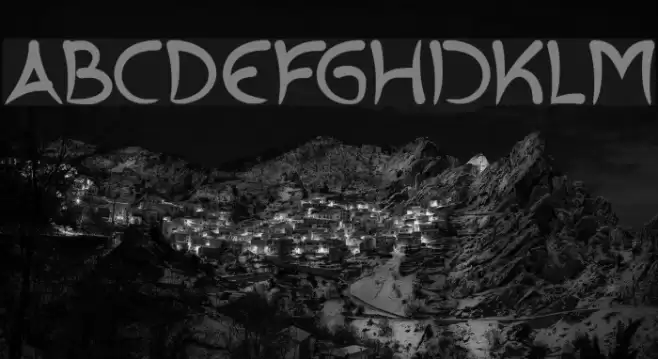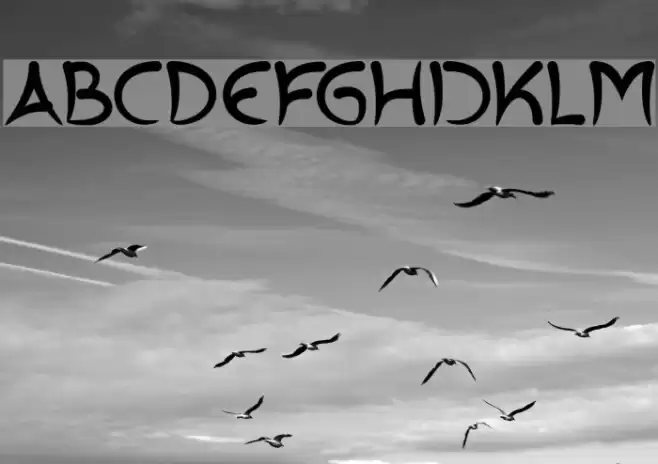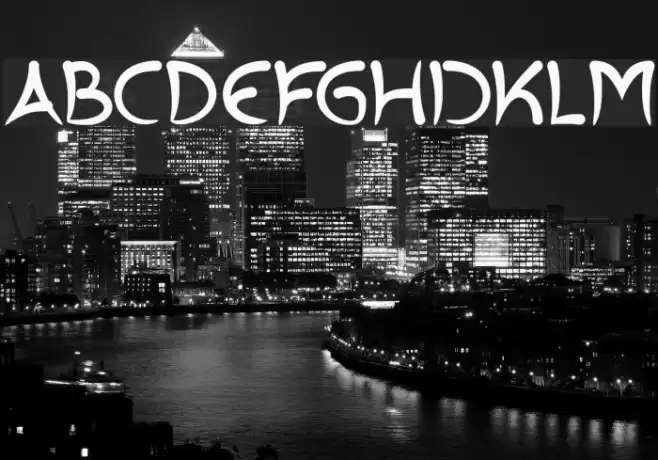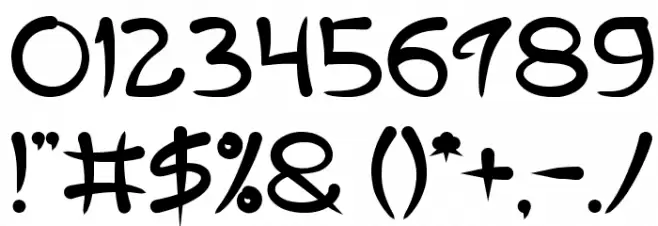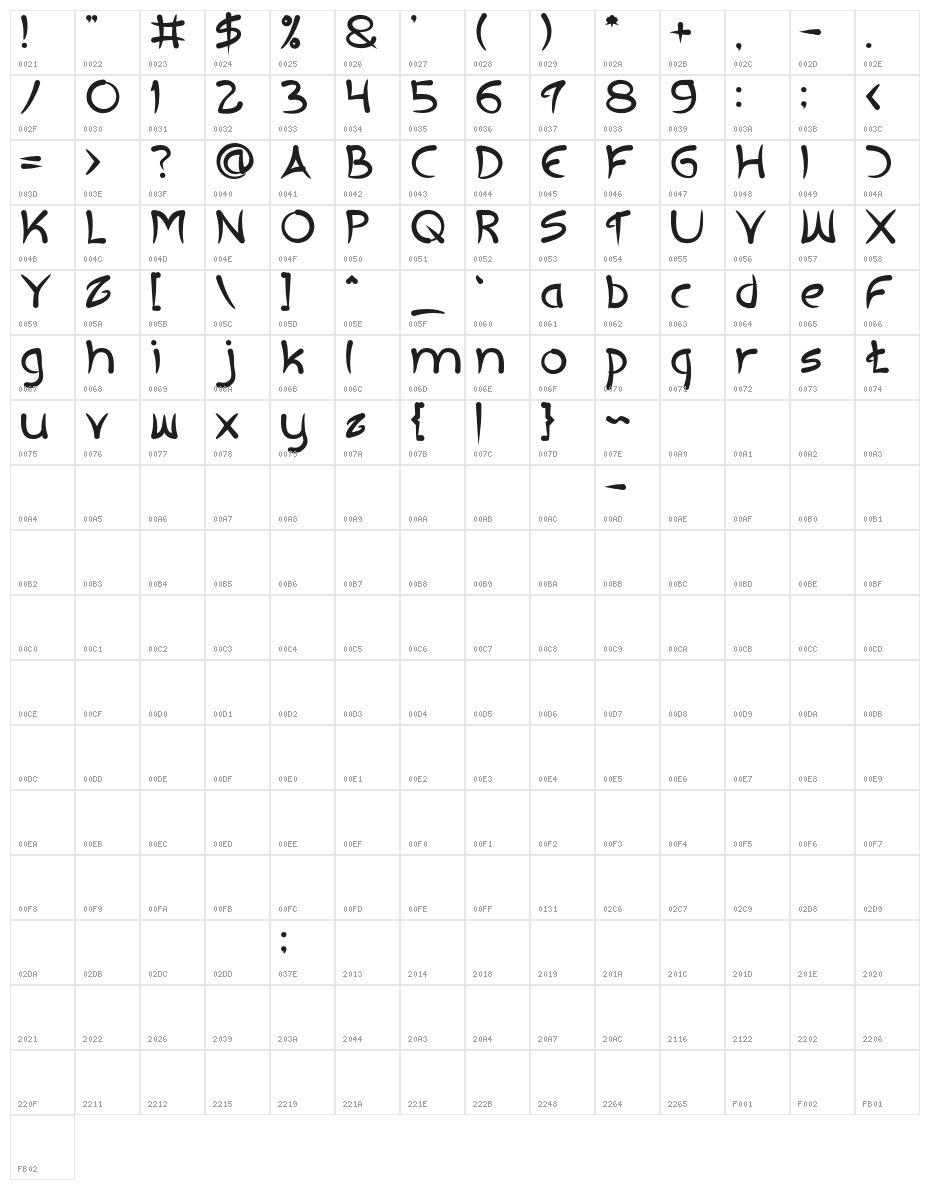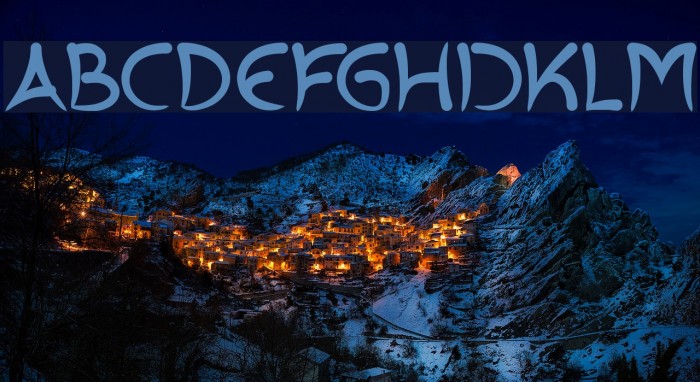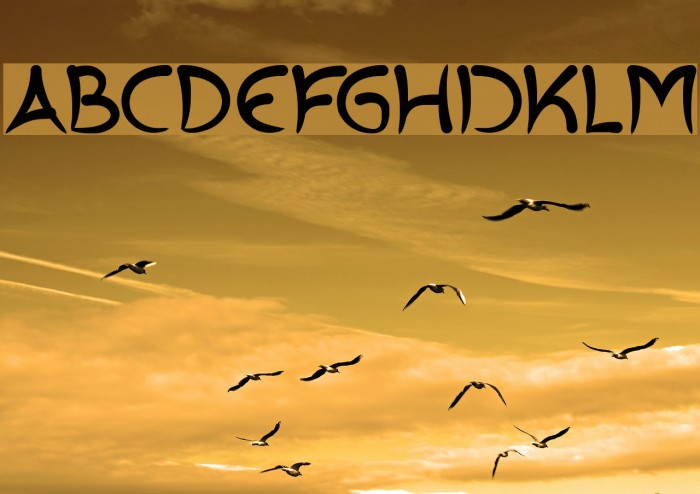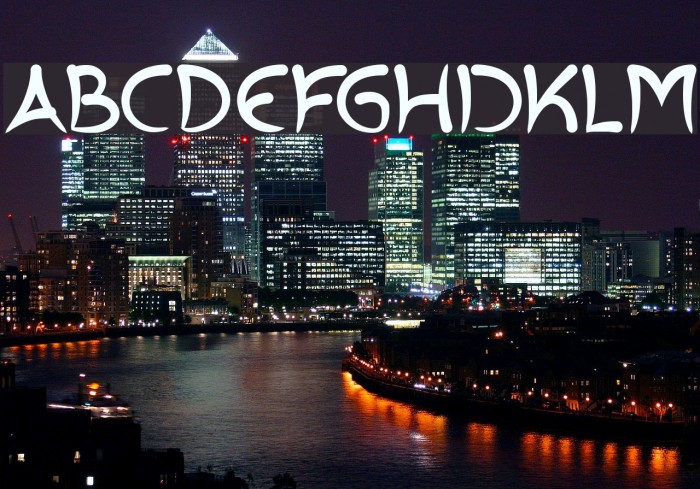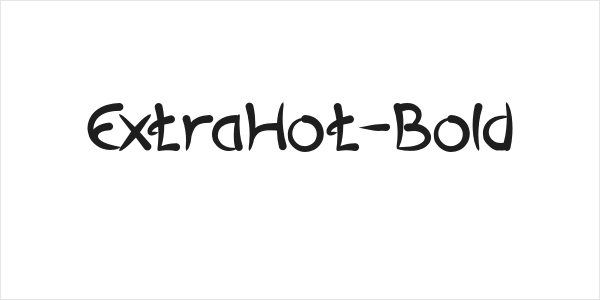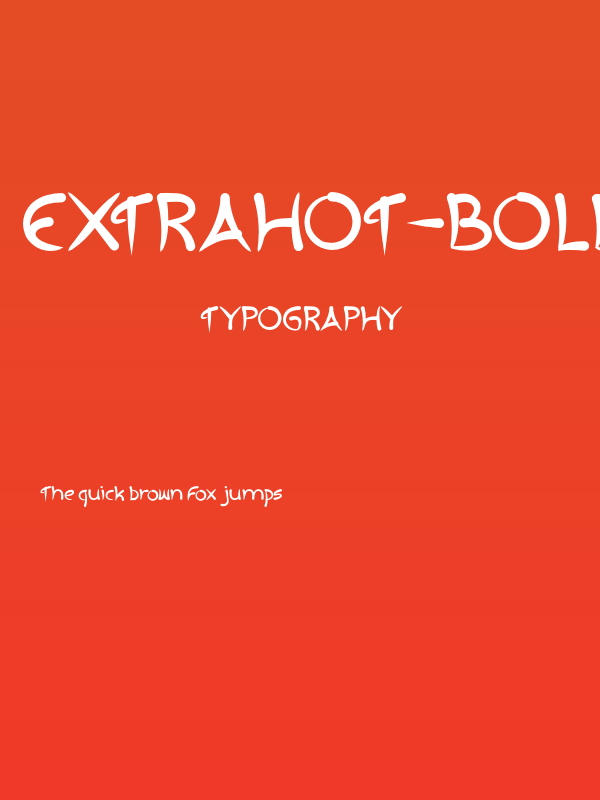
ExtraHot-Bold Font
ExtraHot-Bold Description
This font features a bold and playful design with a handwritten style. The characters are rounded and slightly irregular, giving them a casual and friendly appearance. The strokes are thick and consistent, contributing to a strong visual impact. The uppercase and lowercase letters maintain a cohesive look, while the numerals and special characters complement the overall style. This font is ideal for projects that require a fun and approachable aesthetic.
A bold, playful handwritten font with rounded, irregular characters from Uncategorized fonts.
- Proposed Projects: Ideal for children's books, playful branding, greeting cards, and casual posters.
- Overall Style: Playful